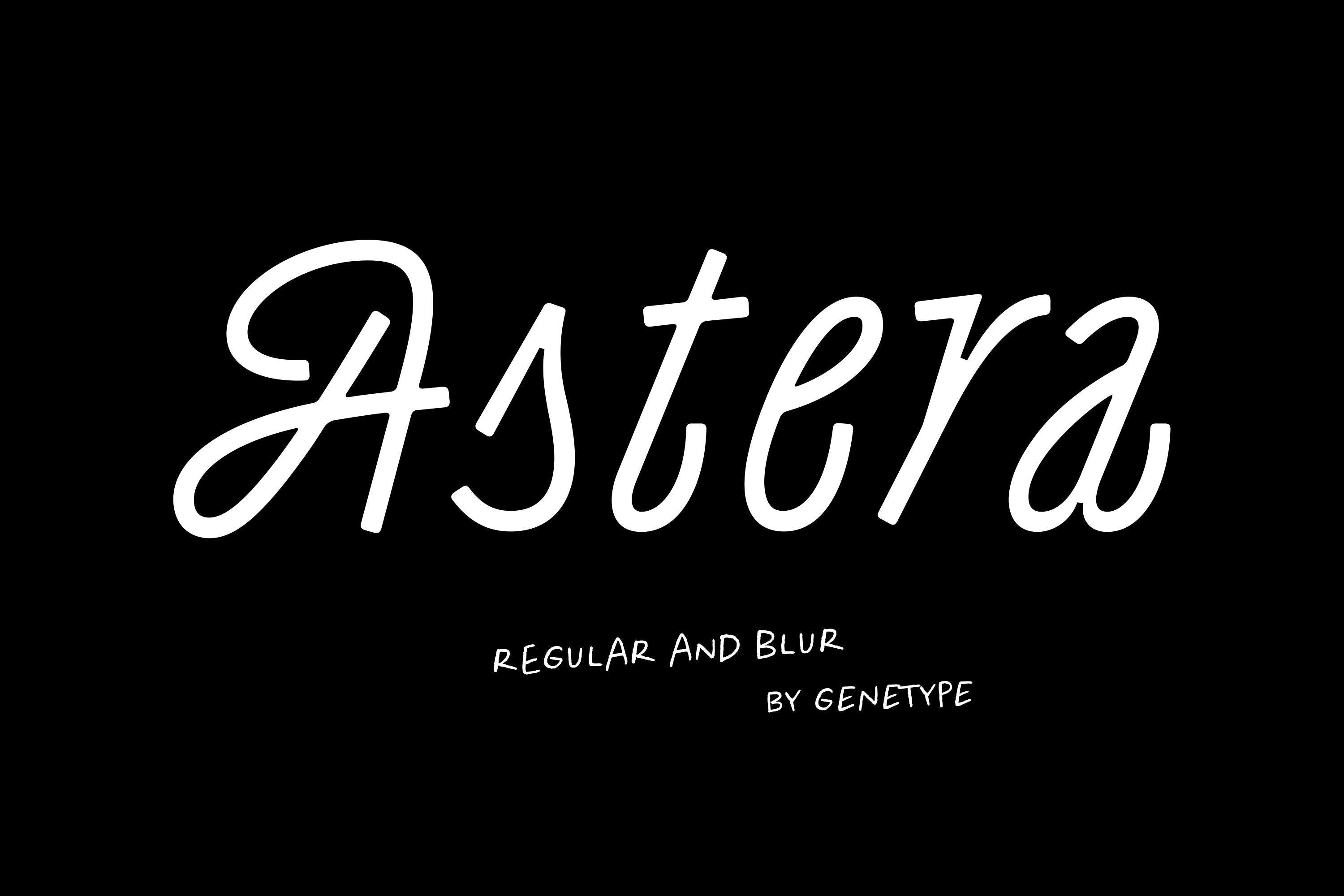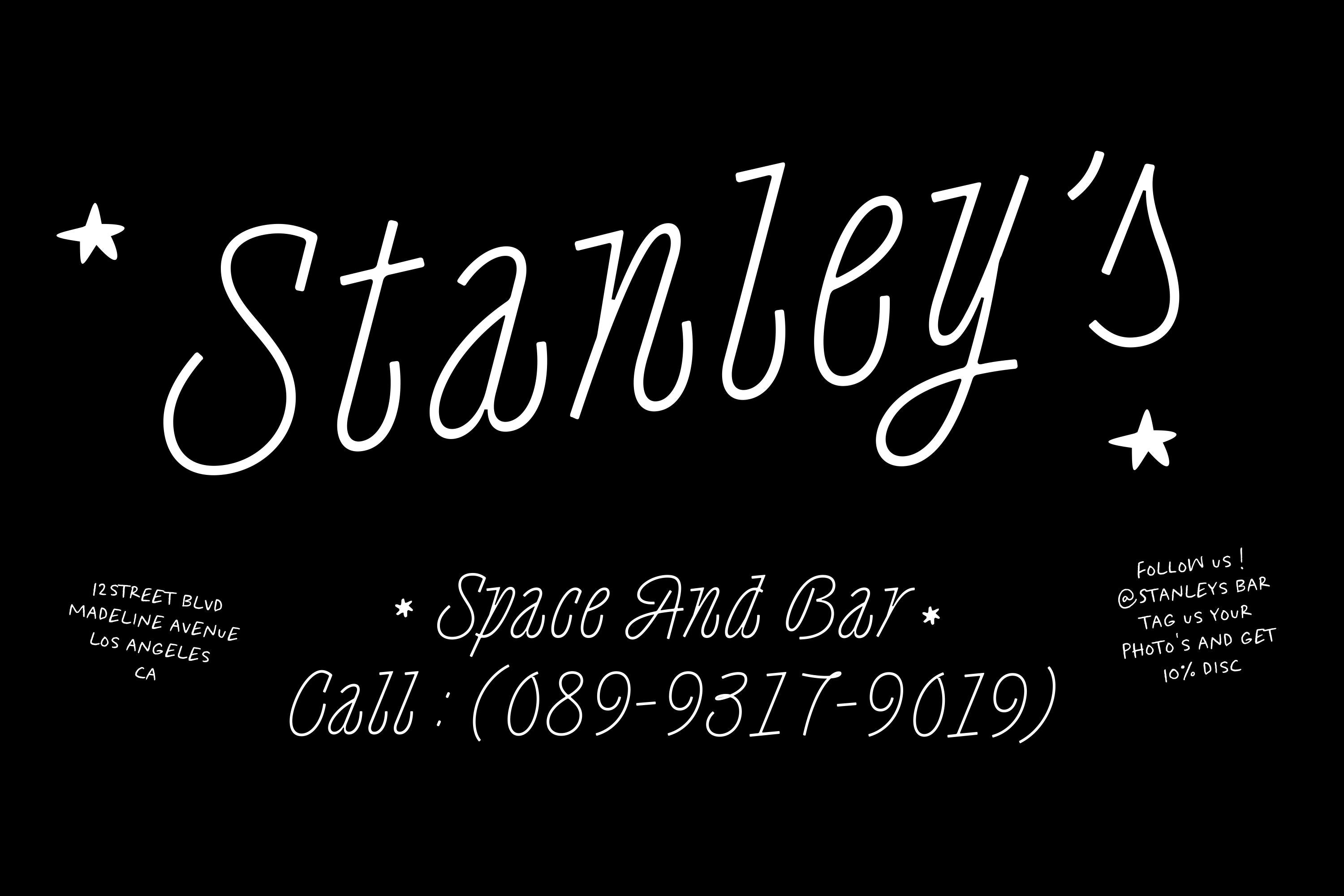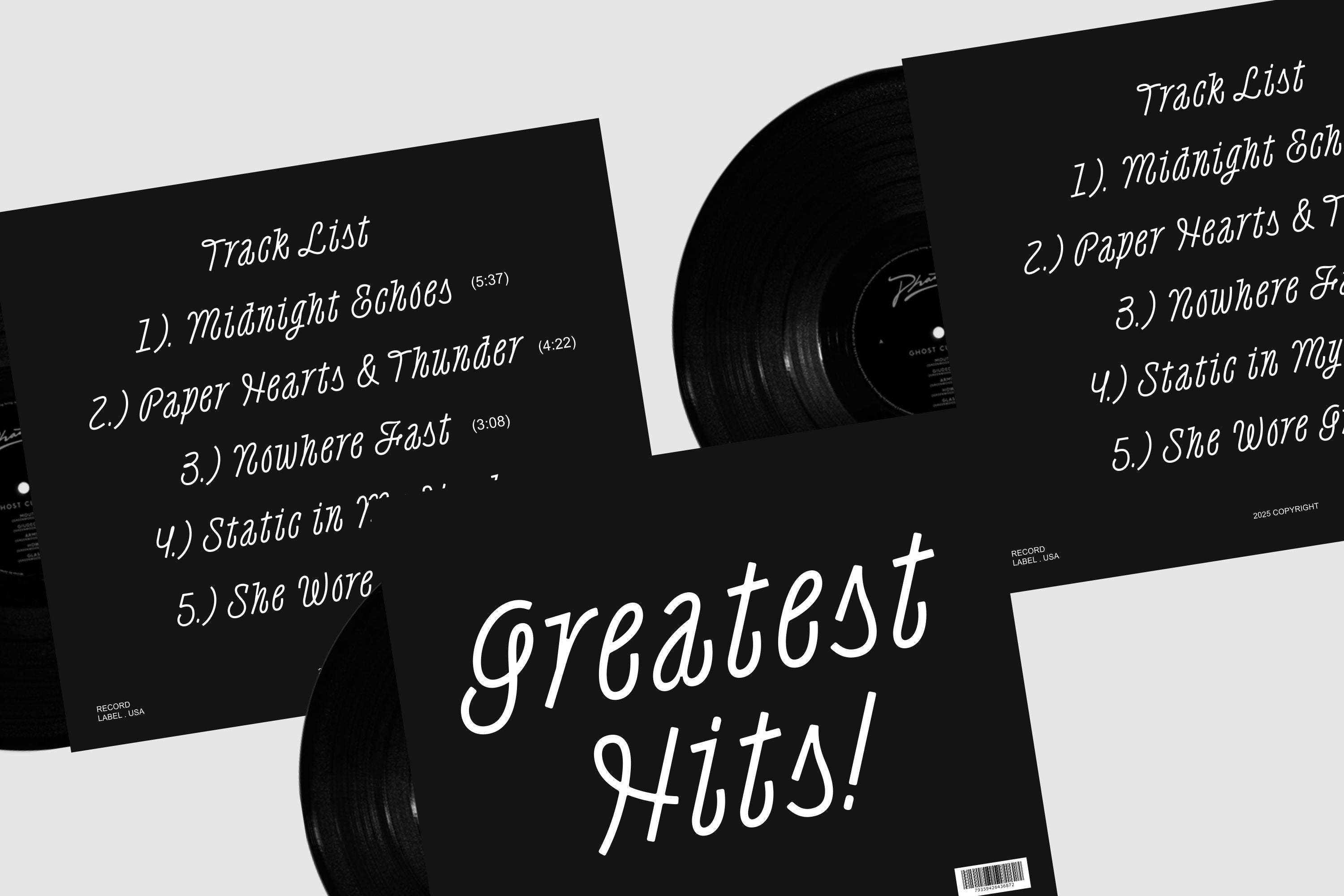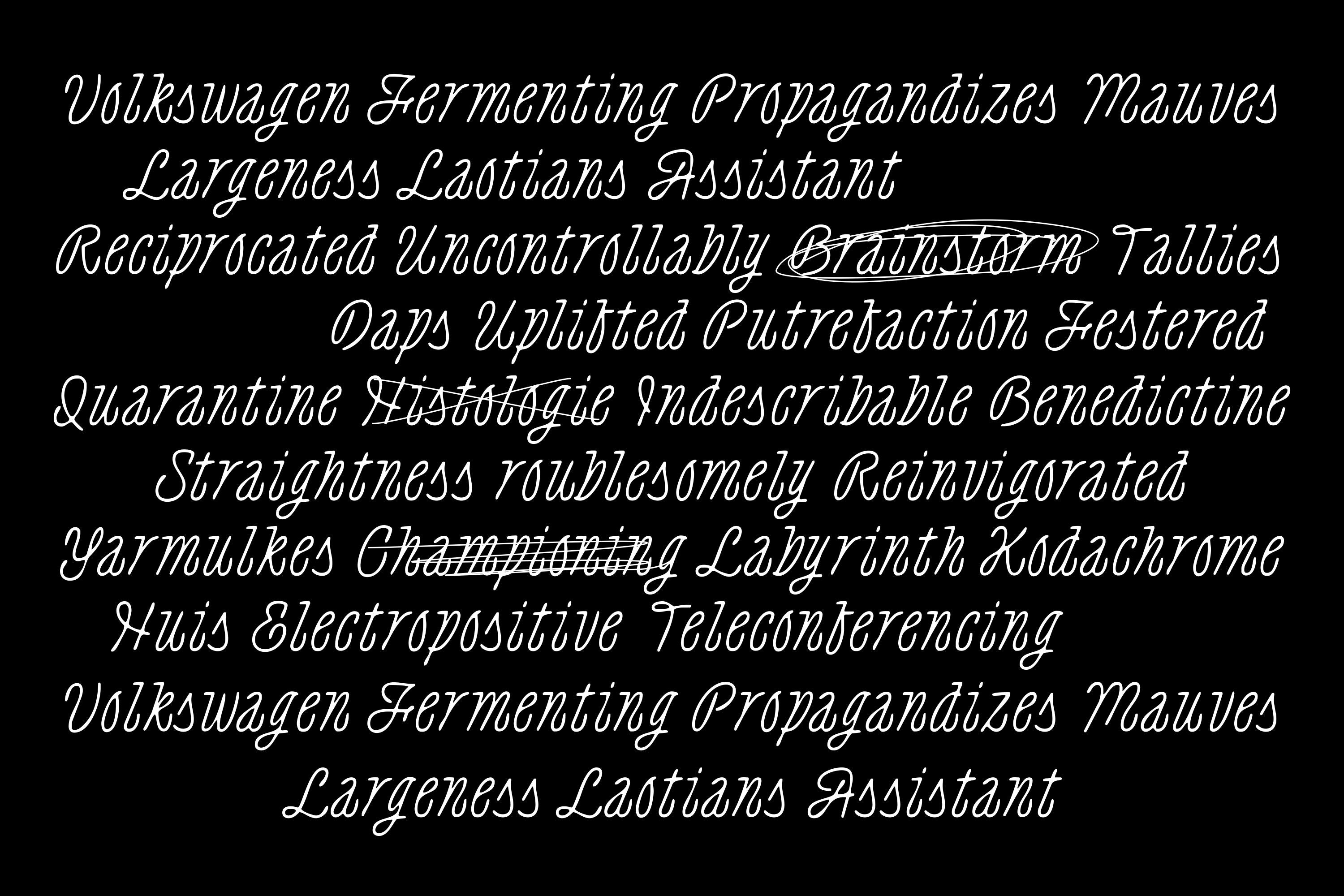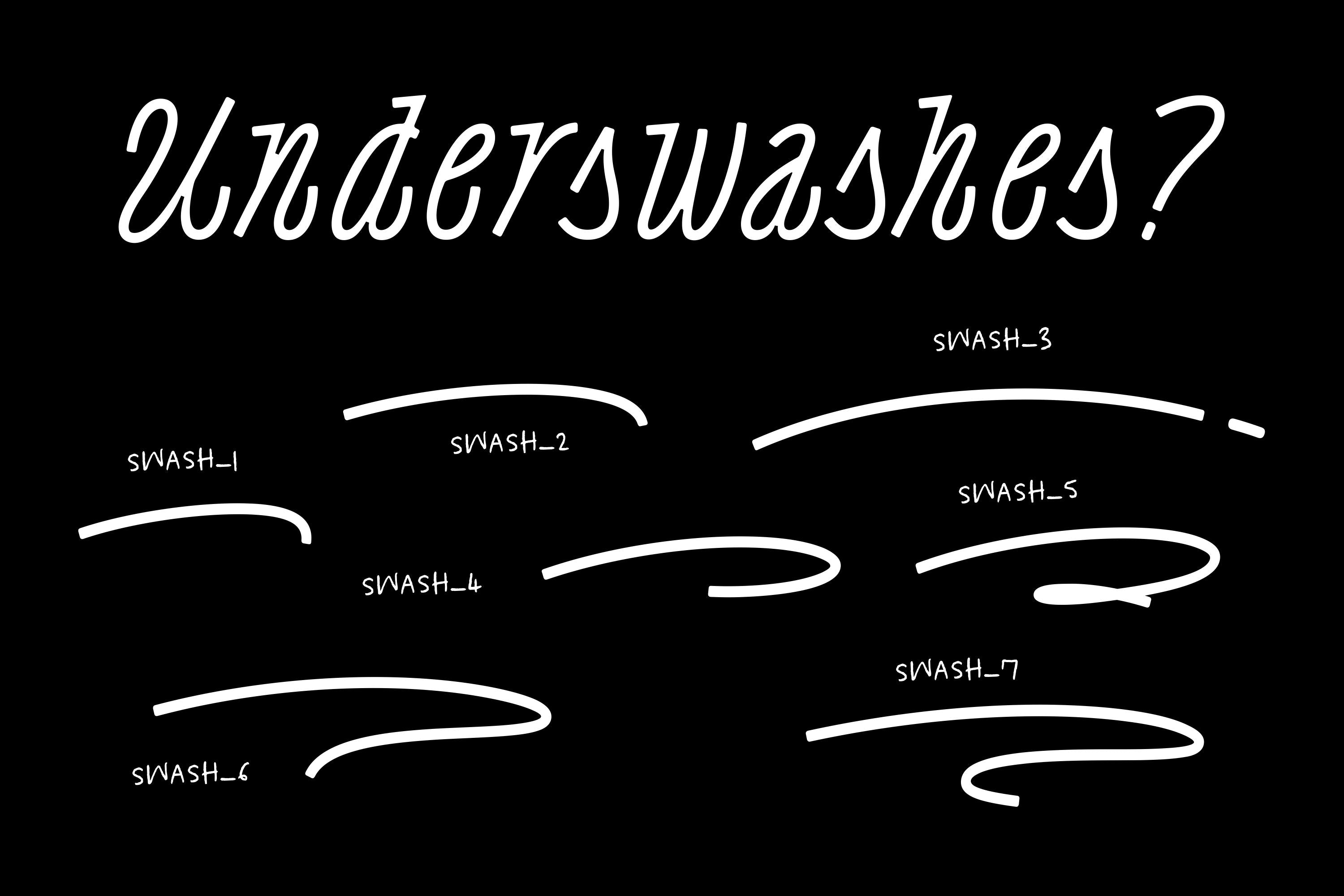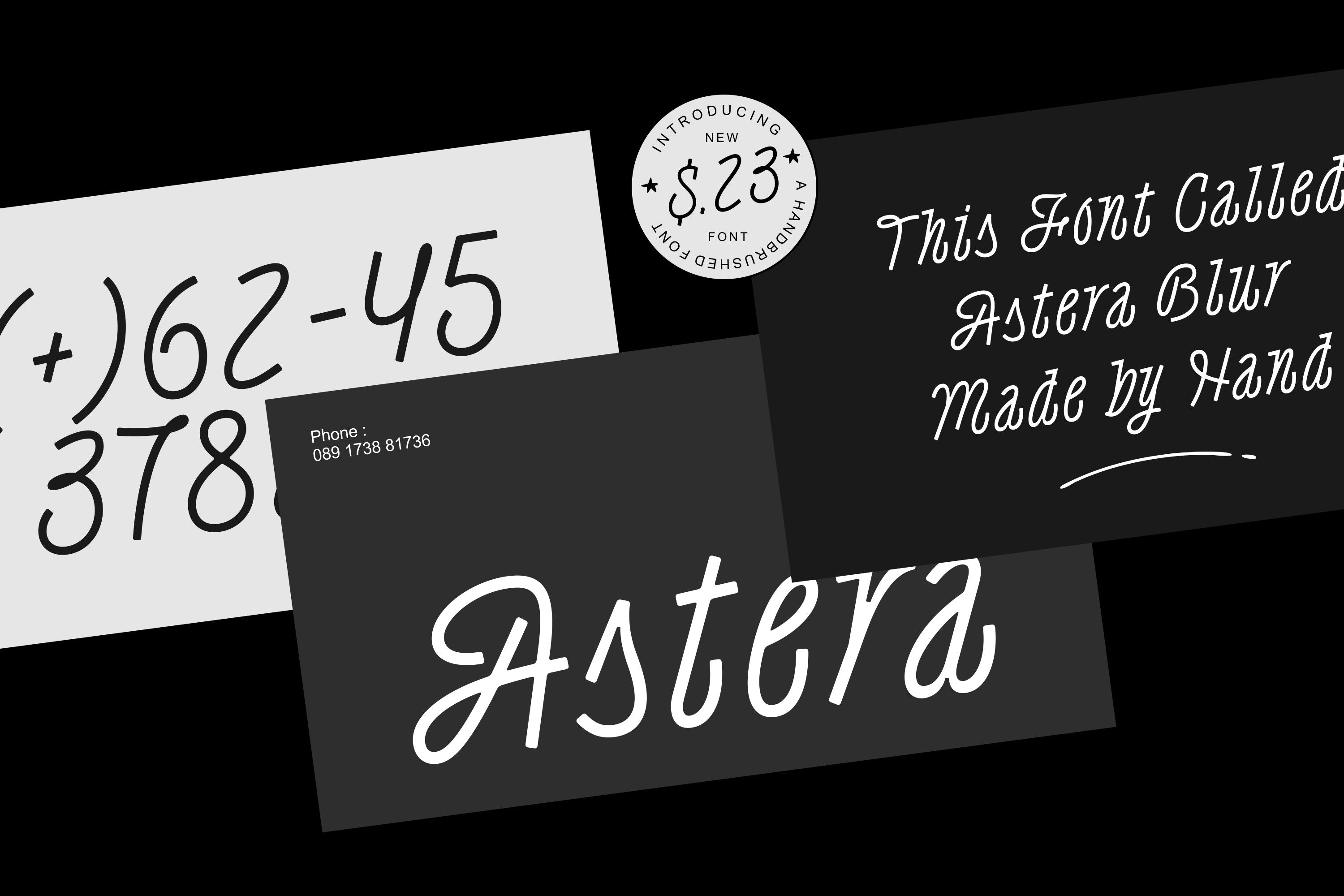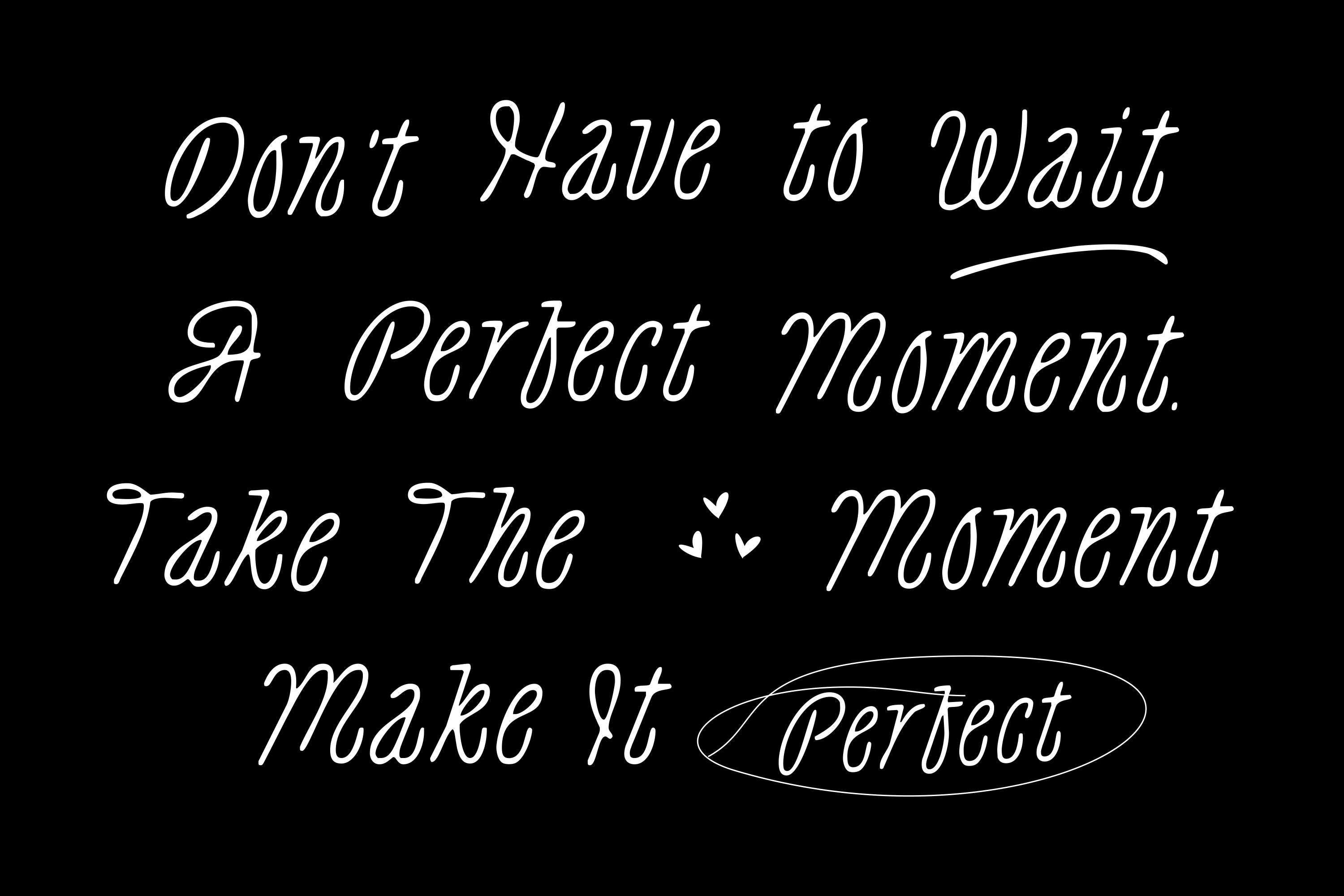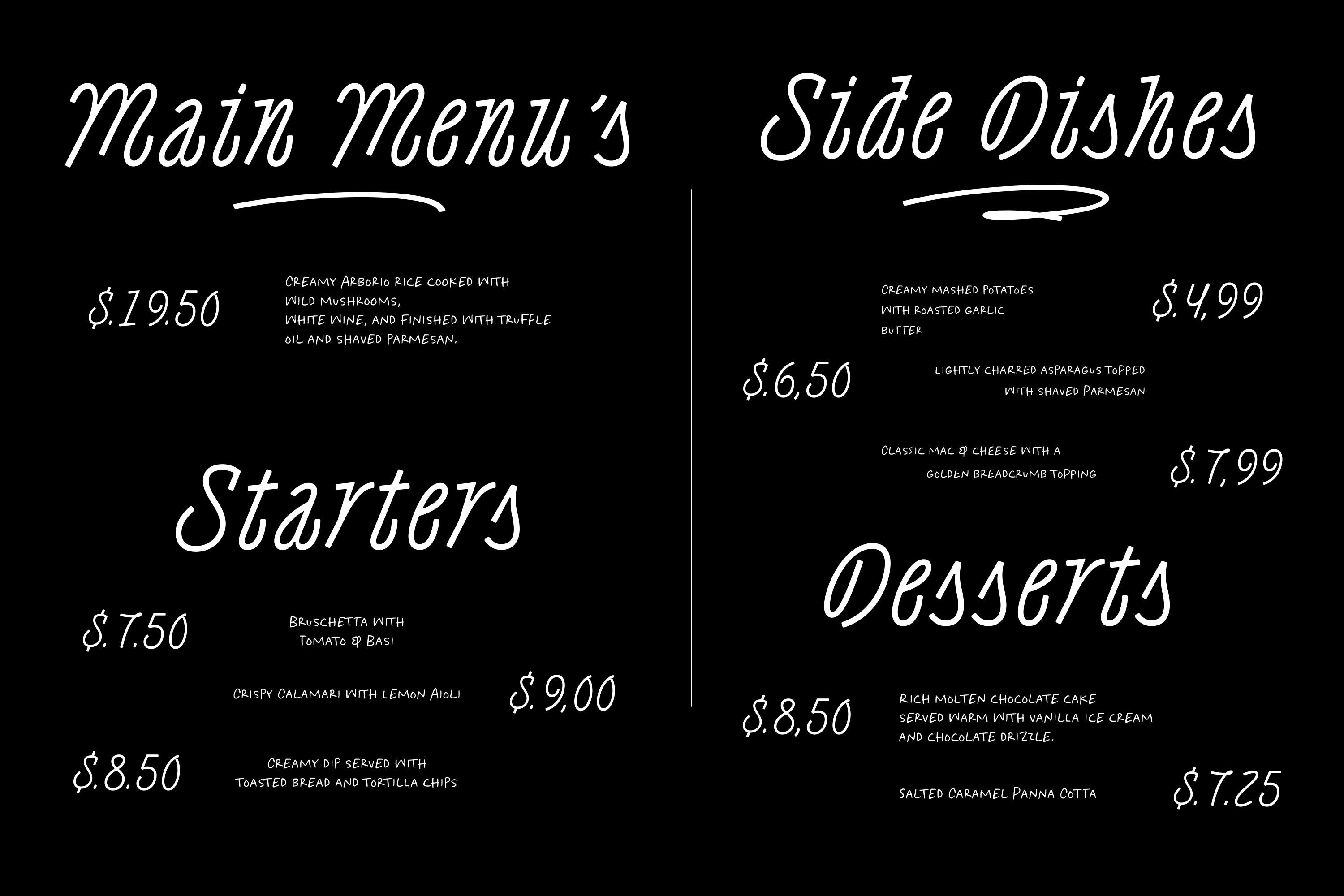
Astera from genetypeco is a modern handwritten font that blends casual elegance with expressive character. Designed with smooth curves and natural strokes, it delivers a stylish yet approachable handwritten look that feels authentic and creative.
This font comes in two unique styles: Regular and Blur, offering both clean and textured options for your designs. Perfect for restaurant menus, logos, posters, packaging, invitations, or music album covers, Astera adapts beautifully to both print and digital designs.
Featuring uppercase and lowercase letters, numerals, punctuation, and multilingual support, Astera gives designers everything needed for expressive and readable typography. Whether you’re going for a personal handwriting touch or a sleek branding statement, Astera makes your text come alive.